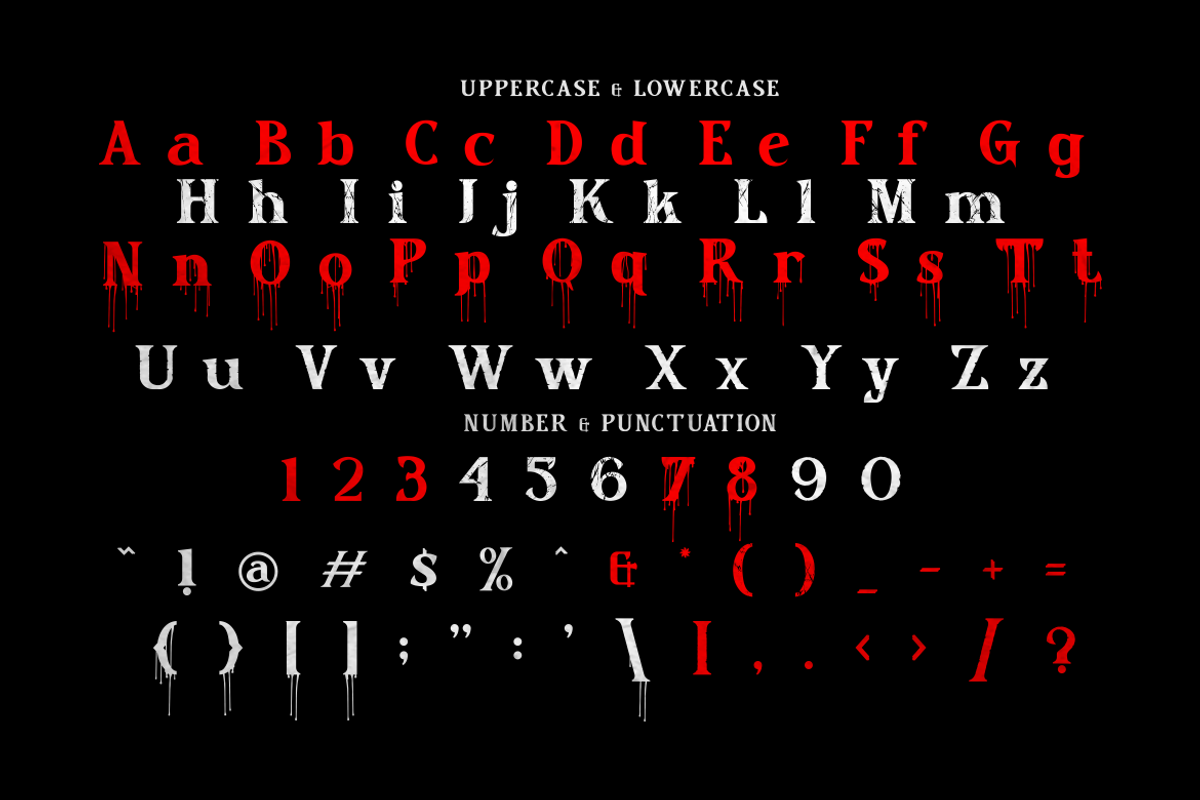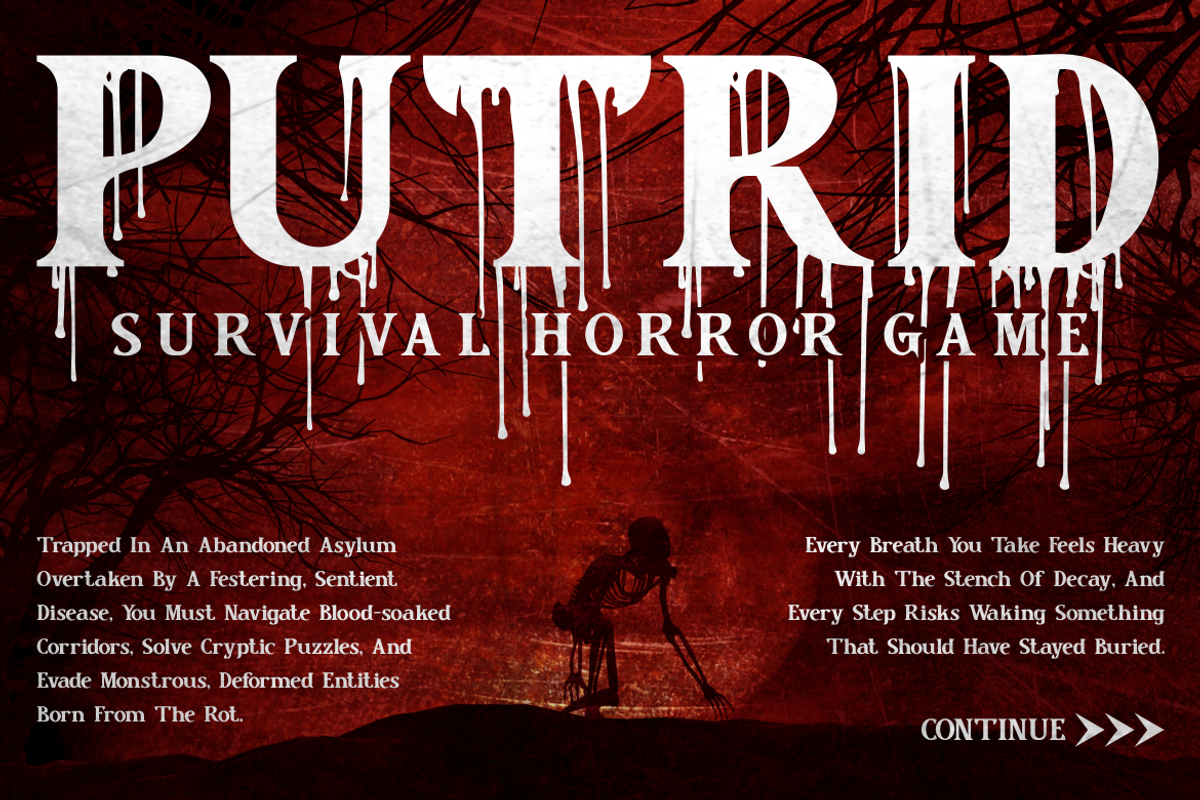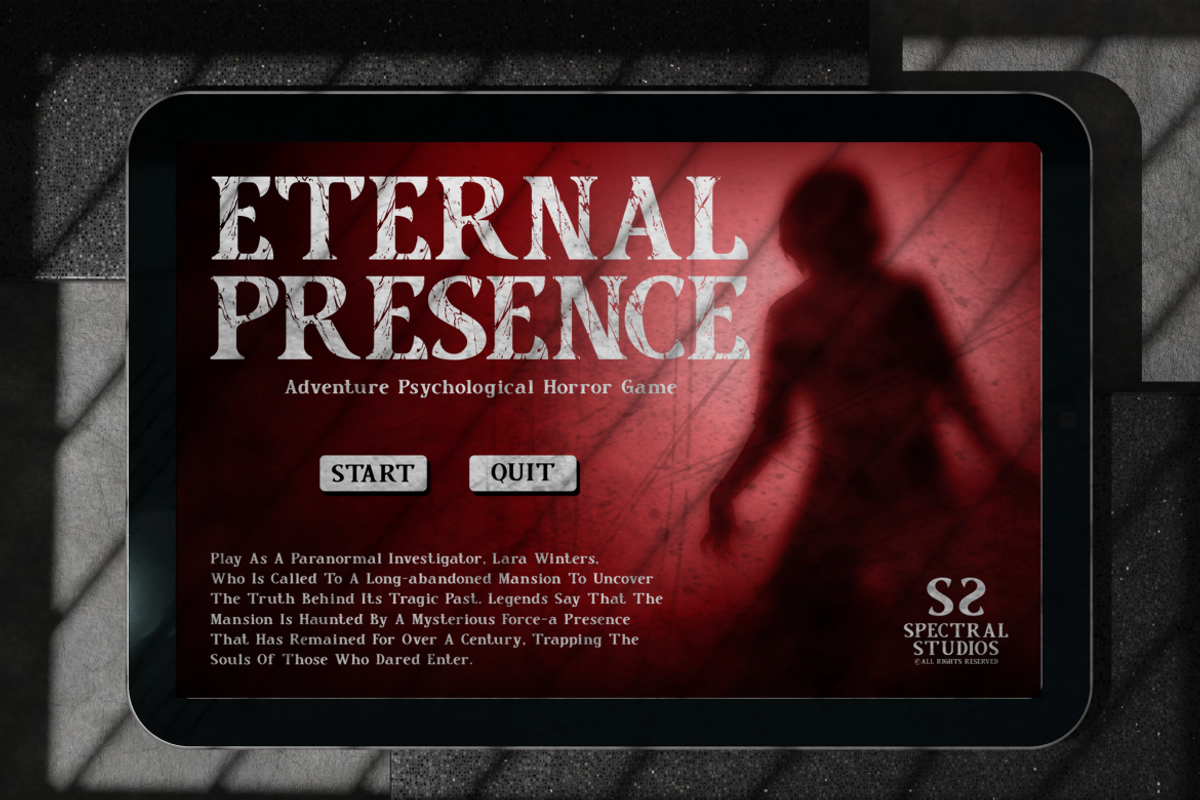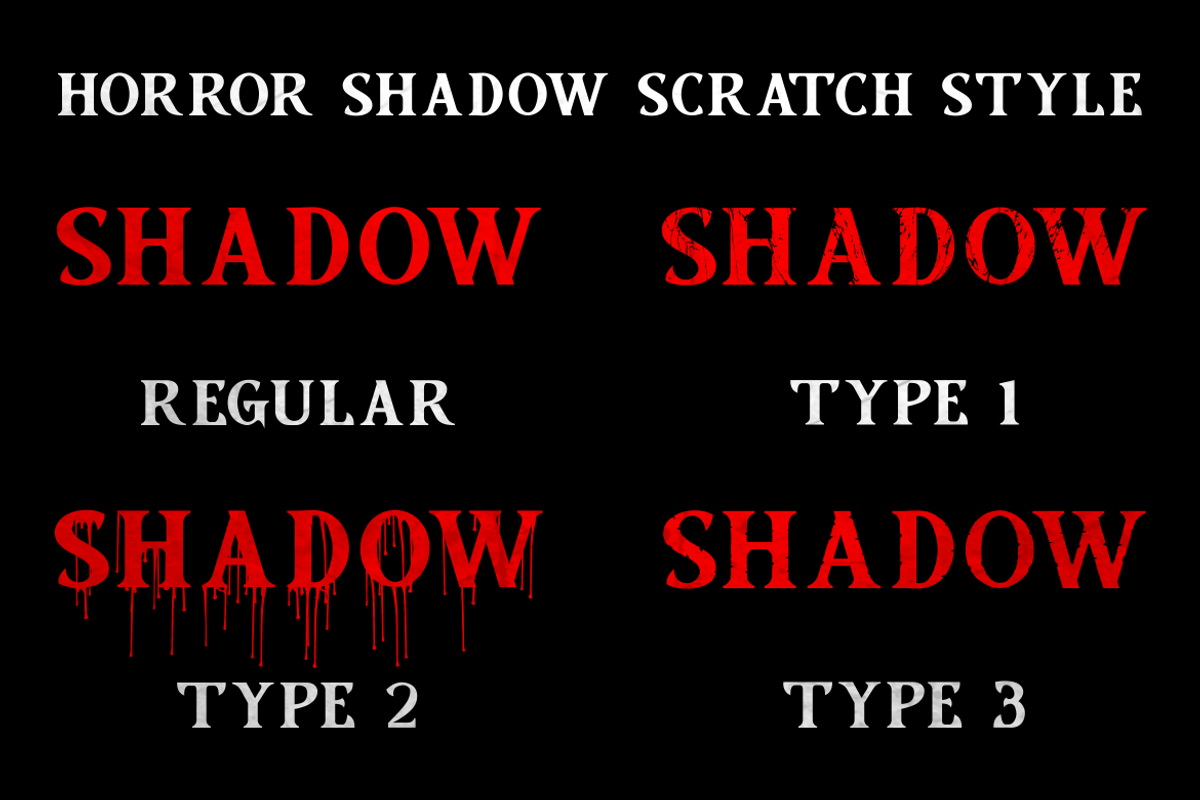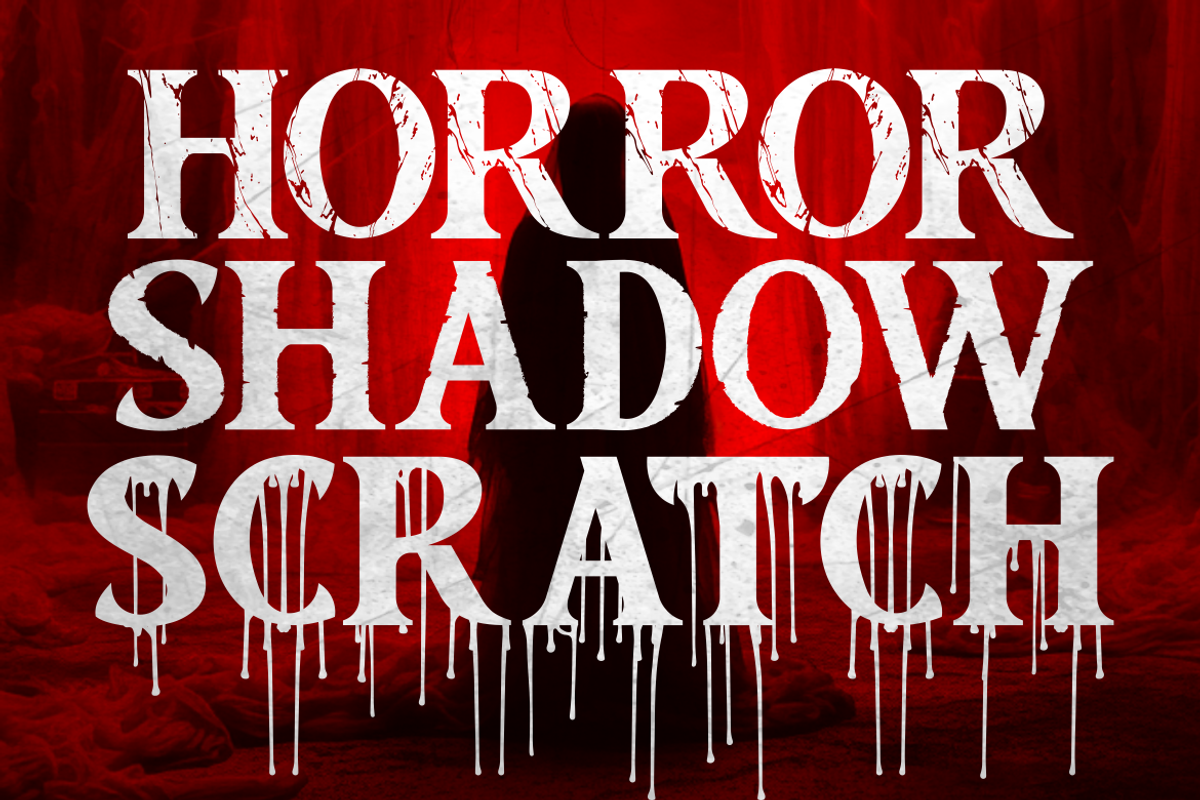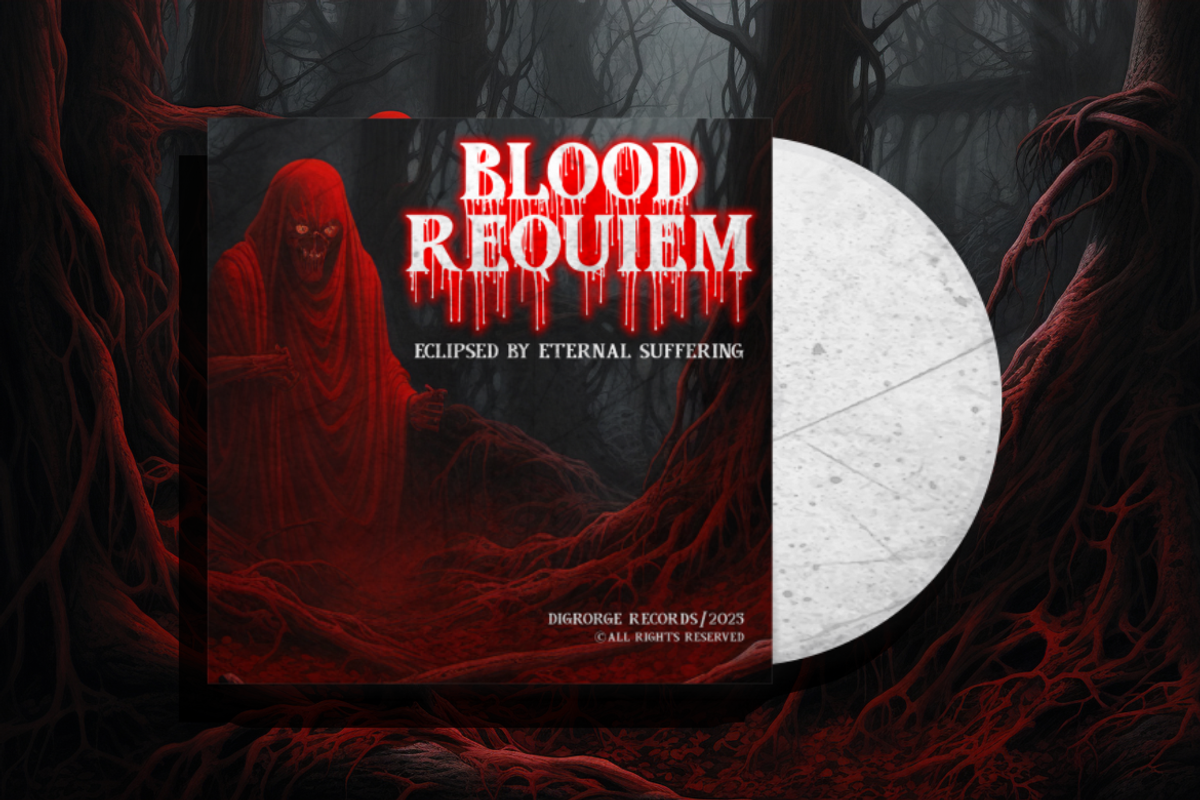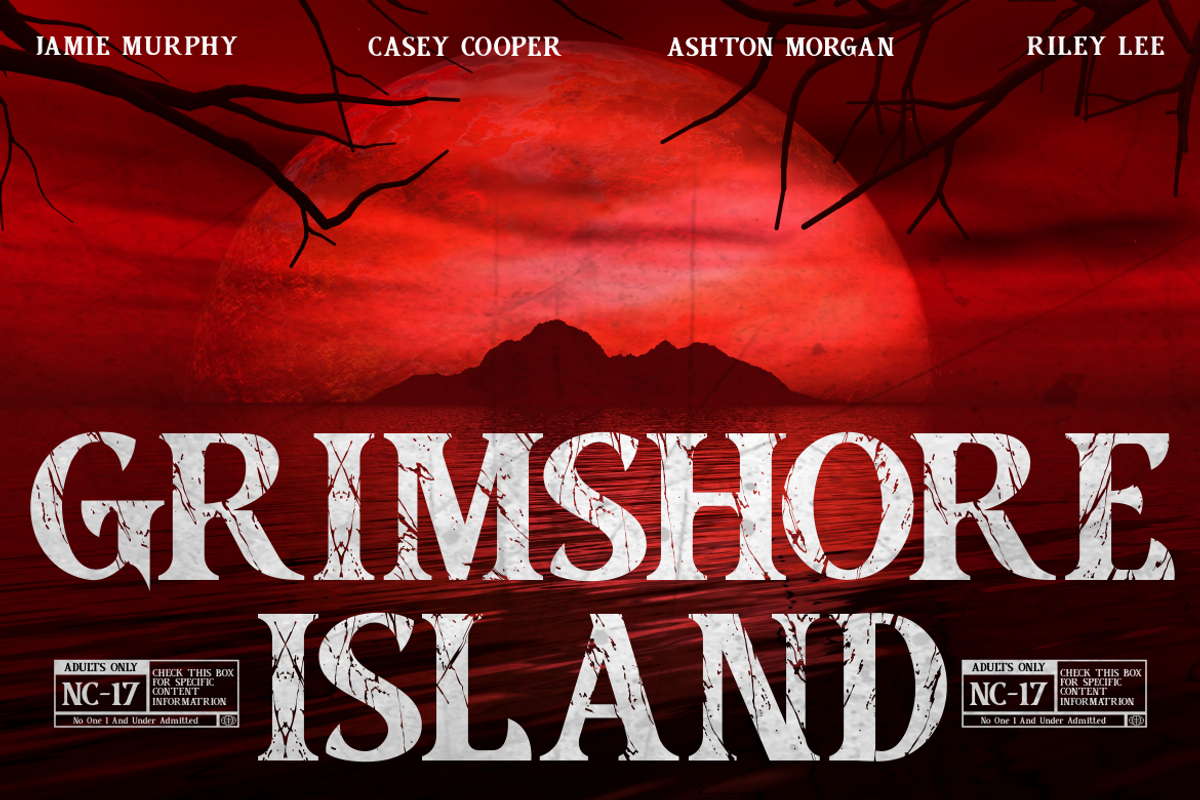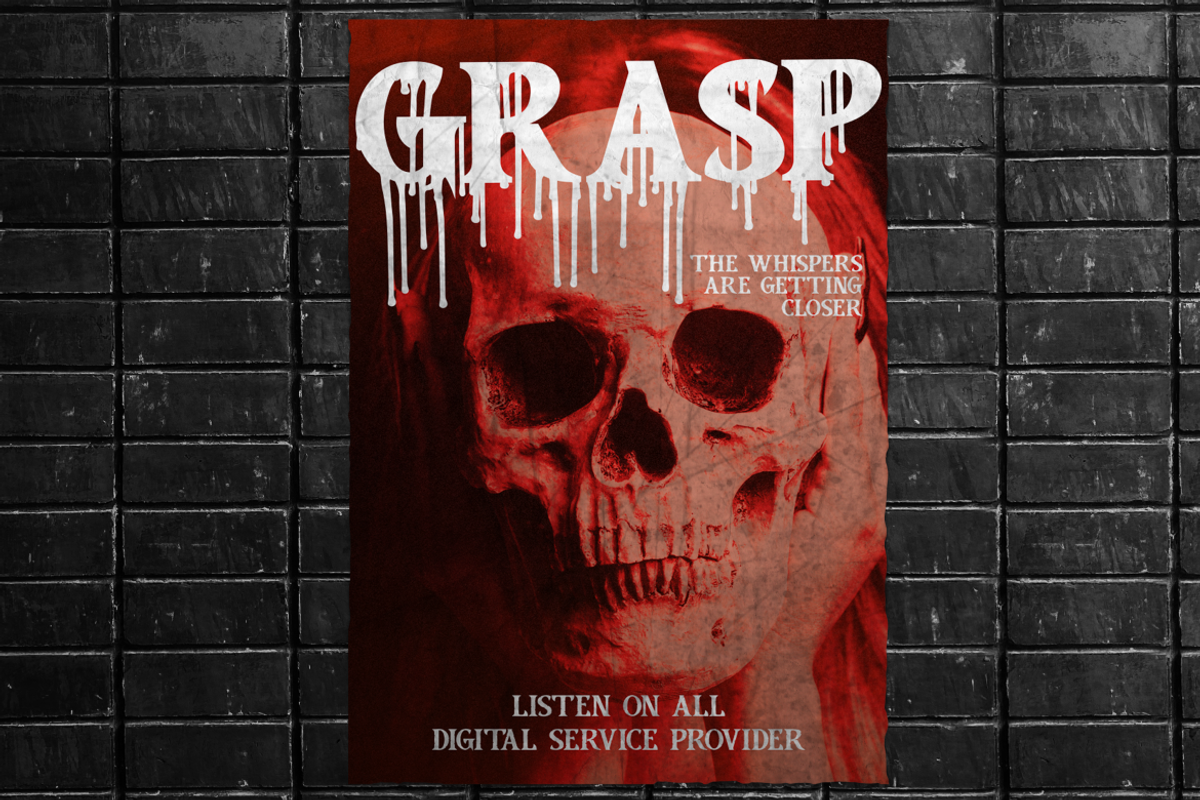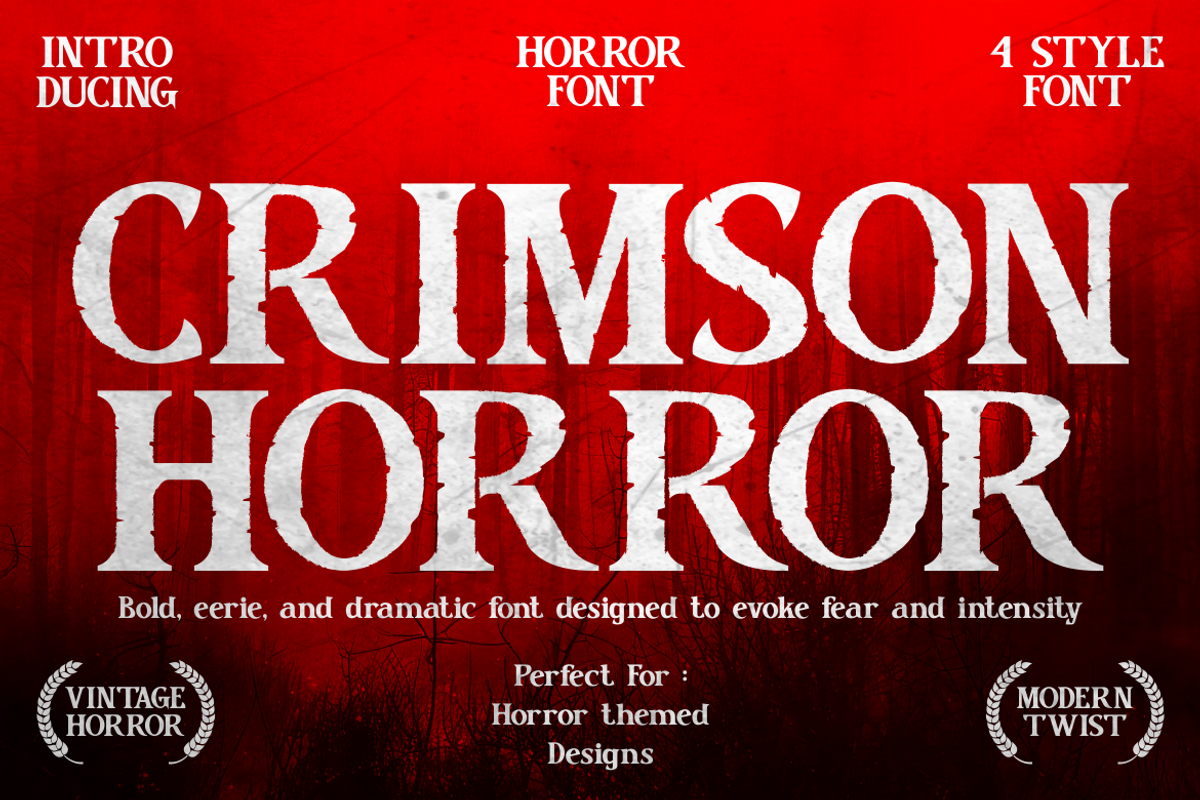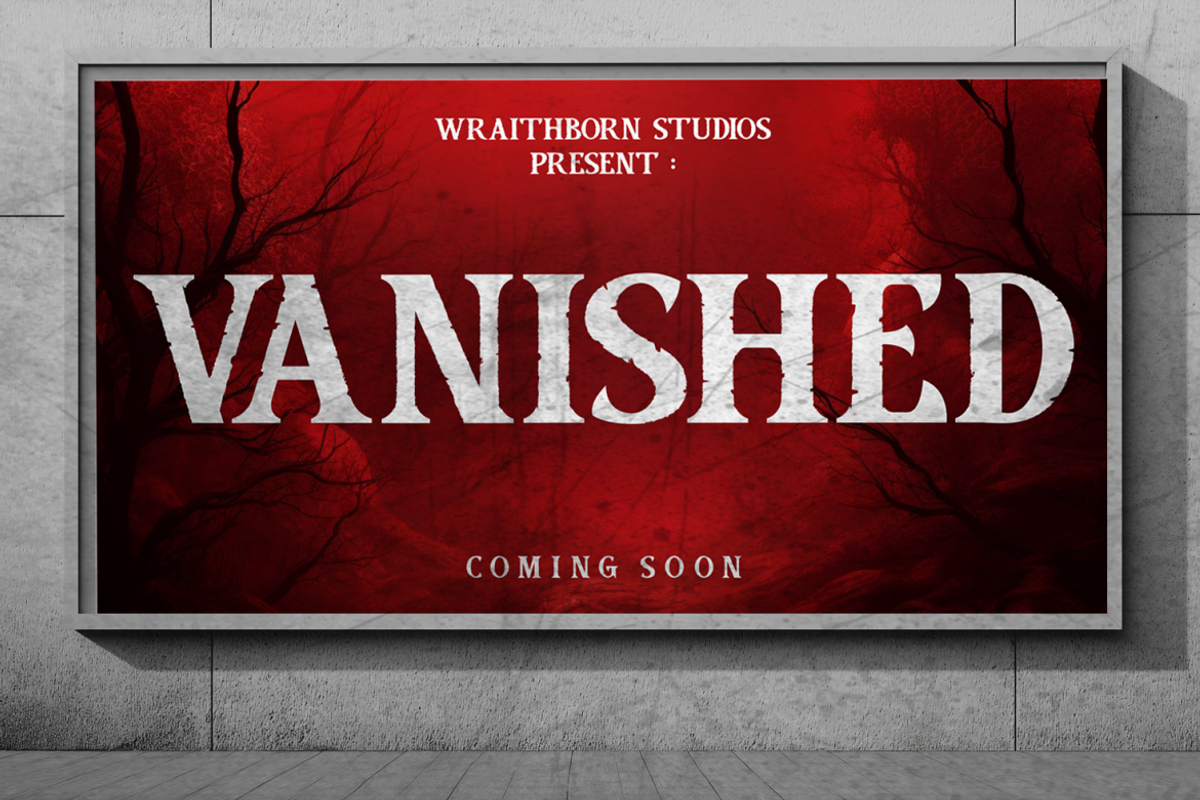
Crimson Horror Horror Font
Crimson Horror is a terrifyingly bold serif horror font crafted to dominate horror-themed visuals with unsettling charisma. Designed with razor-sharp edges, irregular contouring, and eerie texture distress, this font channels vintage horror aesthetics with a contemporary twist. From slashed scratches to dripping forms, each letterform radiates menace making it ideal for haunted house posters, horror film titles, album artwork, and eerie branding concepts. The font is packaged in four styles, allowing for creative flexibility across formats like screen titles, packaging labels, or chilling magazine layouts. Its legibility remains intact even with high-impact stylization, enhancing its usability across various digital and print applications.
Whether used on a blood-drenched video game menu or a gothic cinematic poster, Crimson Horror will immediately draw attention. The red-black visuals paired with this typeface amplify drama and suspense, making it perfect for Halloween campaigns, spooky merchandise, metal music artwork, or eerie social media promos. With a balance of vintage serif structure and terrifying graphical accents, Crimson Horror is more than a font, it’s an atmosphere.